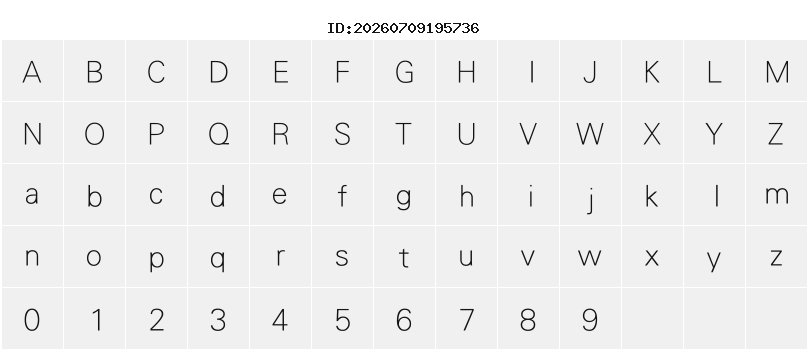
DFPHeiLight-B5 Preview
• Font Name: DFPHeiLight-B5
• Full Font Name: DFPHeiLight-B5
About DFPHeiLight-B5.ttf
DFPHeiLight-B5.ttf is a modern, elegant sans-serif font designed for ultimate readability and visual harmony. Perfect for branding, headlines, web design, and print materials.